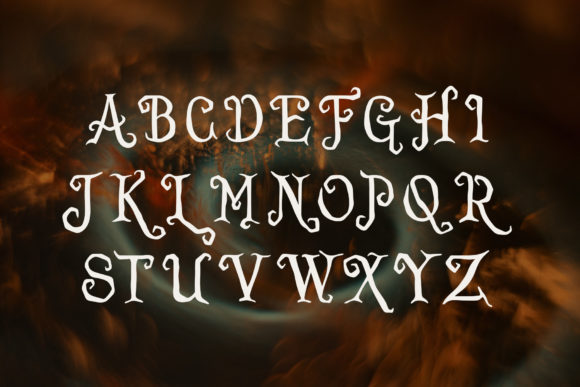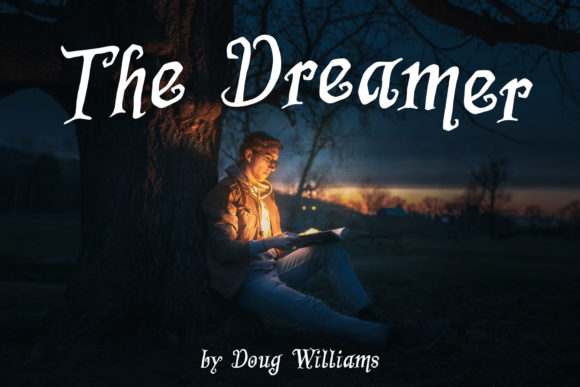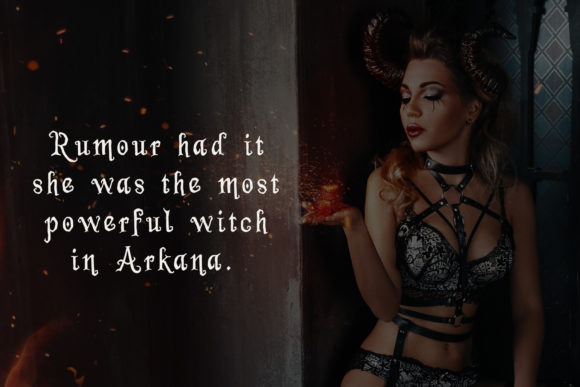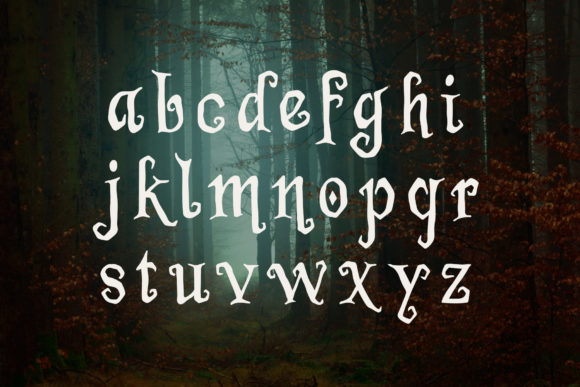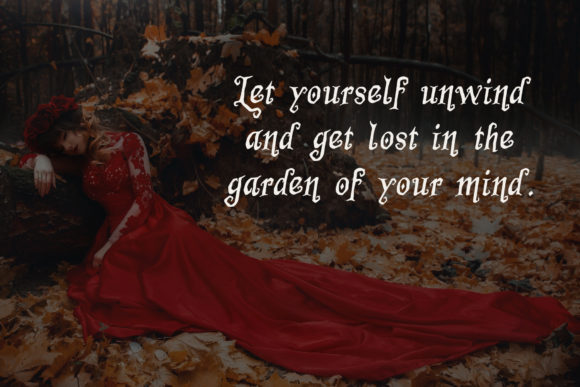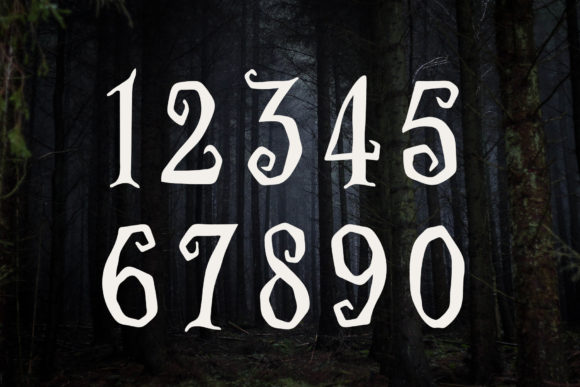
Introducing Arkana Font: The Ultimate Choice for Whimsical Designs
Are you a designer or crafter looking for a font that adds a touch of playfulness and charm to your creations? Look no further than Arkana Font! This cool and whimsical display font is perfect for anyone who wants to add a dash of fun and personality to their designs. In this article, we’ll dive into the world of Arkana Font and explore its features, uses, and benefits.
What is Arkana Font?
Arkana Font is a display font designed to bring a sense of playfulness and wonder to your designs. Its unique and quirky style makes it an excellent choice for cartoon-related designs, children’s games, and any creation that requires a lovely touch. The font’s whimsical nature is sure to capture the attention of your audience and leave a lasting impression.
Key Features of Arkana Font
- Whimsical Design: Arkana Font boasts a unique and playful design that’s sure to add a touch of magic to your creations.
- Display Font: This font is specifically designed for display purposes, making it perfect for headlines, titles, and other attention-grabbing elements.
- Cartoon-Friendly: Arkana Font’s playful style makes it an excellent choice for cartoon-related designs, animations, and children’s games.
- Easy to Read: Despite its whimsical nature, Arkana Font remains easy to read, making it suitable for a wide range of applications.
Uses of Arkana Font
Arkana Font’s versatility makes it suitable for a wide range of projects, including:
- Cartoon and Animation Designs: Add a playful touch to your cartoon characters, titles, and animations.
- Children’s Games and Toys: Create engaging and fun designs for children’s games, toys, and educational materials.
- Branding and Packaging: Use Arkana Font to add a touch of whimsy to your brand’s identity, packaging, and marketing materials.
- Digital and Print Media: Arkana Font can be used in a variety of digital and print media, including posters, flyers, brochures, and social media graphics.
Benefits of Using Arkana Font
By choosing Arkana Font for your designs, you’ll enjoy several benefits, including:
- Unique and Eye-Catching Designs: Arkana Font’s whimsical style will help your designs stand out from the crowd.
- Fun and Creative Expression: Arkana Font’s playful nature allows you to express your creativity and add a touch of personality to your designs.
Tips for Using Arkana Font Effectively
To get the most out of Arkana Font, follow these tips:
- Use it Sparingly: Arkana Font’s whimsical nature can be overwhelming if overused. Use it sparingly to create emphasis and add visual interest.
- Pair it with Other Fonts: Combine Arkana Font with other fonts to create a unique and visually appealing typography.
- Experiment with Colors and Textures: Add depth and interest to your designs by experimenting with different colors and textures.
Arkana Font is a versatile and whimsical display font that’s perfect for designers and crafters looking to add a touch of playfulness and charm to their creations. With its unique design, ease of use, and cross-platform compatibility, Arkana Font is an excellent choice for a wide range of projects. Whether you’re creating cartoon-related designs, children’s games, or simply want to add a dash of fun to your branding and marketing materials, Arkana Font is sure to impress.